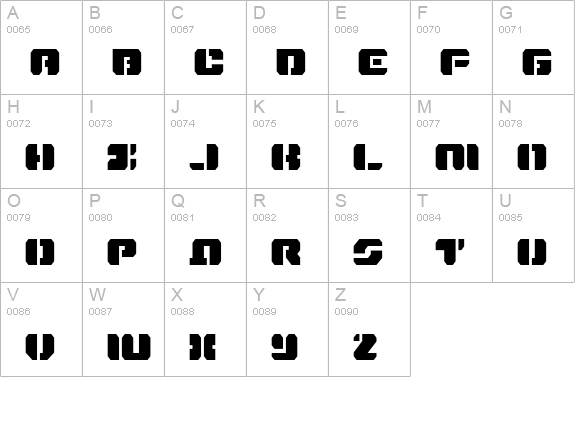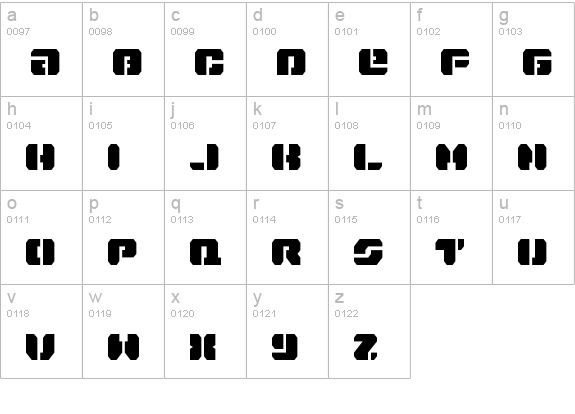
Dan Stargate Condensed Font Details
Dan Stargate Condensed is a distinctive, condensed-width variant in the Dan typeface family \xE2\x80\x94 well suited to design and typography projects.
Dan Stargate Condensed font is a sleek and modern typeface that exudes sophistication and professionalism. With its clean lines and sharp edges, this font is perfect for creating eye-catching designs that demand attention. Whether you are working on a branding project, a poster design, or a website layout, Dan Stargate Condensed will bring a touch of elegance to your work. What sets this font apart is not only its striking appearance but also the fact that it is available for free download at FontsMarket.com. This means that you can easily access this high-quality font without any cost, making it a valuable addition to your font library. Don't miss out on the opportunity to enhance your projects with the stylish and versatile Dan Stargate Condensed font. Download it for free today and see how it can elevate your designs to the next level.